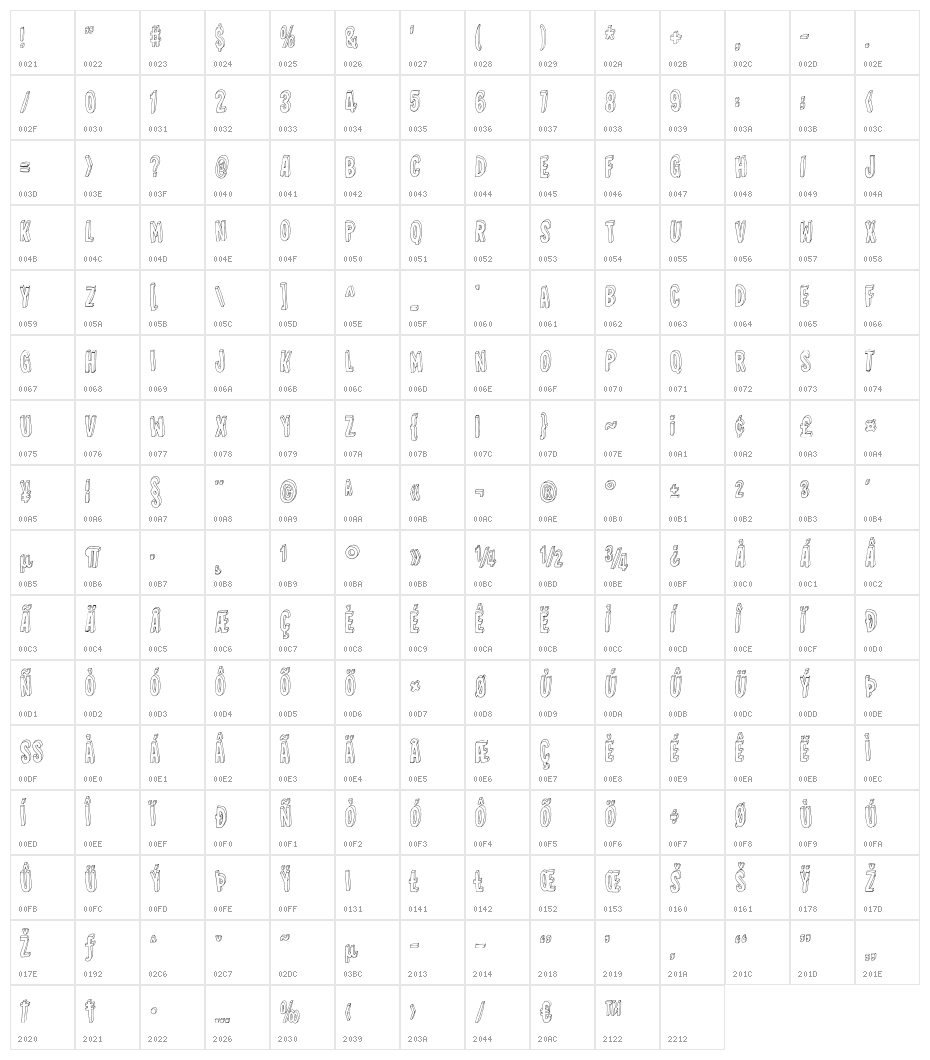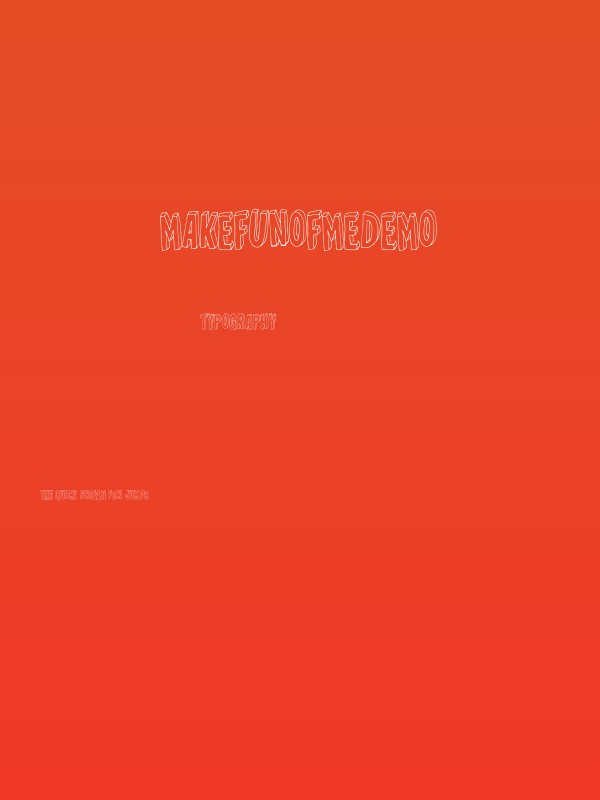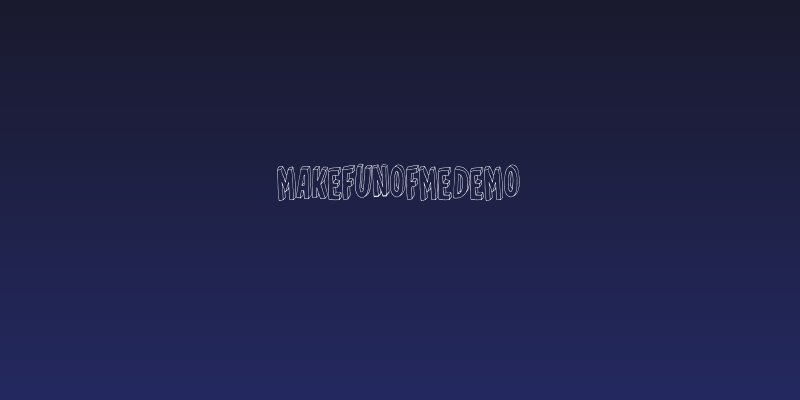
MakefunofmeDEMO Font
MakefunofmeDEMO Description
This font features a playful and bold 3D style, with each character outlined to create a sense of depth and dimension. The letters are uppercase and lowercase, with a consistent thickness that gives them a sturdy appearance. The numbers and special characters follow the same design, ensuring uniformity across all elements. The font's hand-drawn aesthetic adds a whimsical touch, making it ideal for projects that require a fun and engaging look. Its unique style is perfect for capturing attention and conveying a sense of creativity.
| Overall Style | Playful, Creative |
| Proposed Projects | Ideal for children's book covers, playful branding, posters, and creative event invitations. |